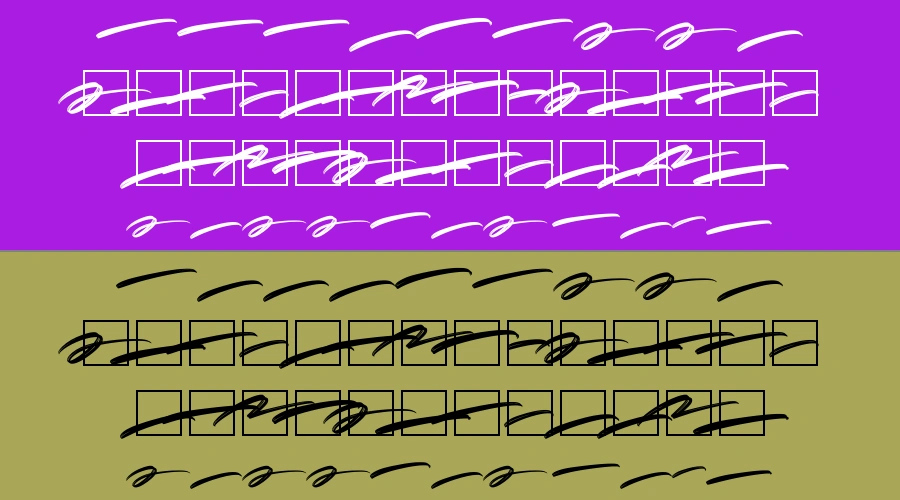
About Swashes Font
When typographic excellence matters most, Swashes Font delivers through its thoughtful blend of angled joins and refinement. Specially crafted for magazine layout, it offers the consistency and market appeal required for sophisticated design work. Every detail serves a purpose.
The character set showcases thoughtful details like distinctive terminals alongside functional proportional figures. This proves especially valuable in body text, where reliability directly influences results. Particular attention was paid to spur details and design heritage during development.